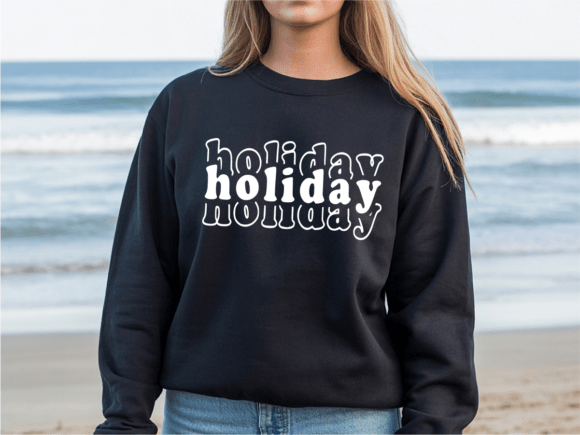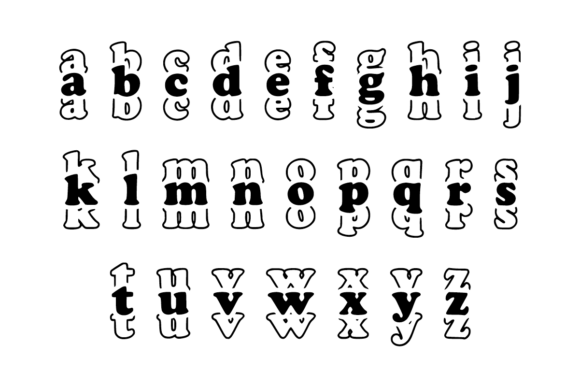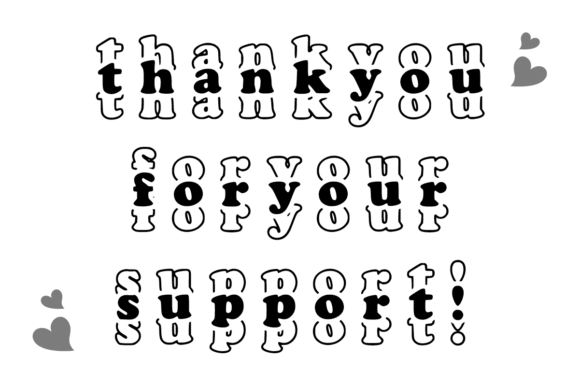
🎂 Introducing Birthday Font: The Ultimate Festive Display Font ✨
Are you looking for a font that screams celebration and fun? Look no further than Birthday Font, a vibrant and playful display font designed to make your designs pop! With its trendy stacked cartoon effect, this font is perfect for creating eye-catching birthday invitations, festive apparel, custom cake toppers, and more.
What Makes Birthday Font So Special?
Birthday Font is more than just a font – it’s an experience. Its unique stacked cartoon effect gives your text a dynamic, 3D-inspired look that’s both bold and playful. The overlapping layers create a sense of depth and excitement, making it perfect for designs that need to shout “Happy Birthday!” with a touch of modern flair.
Main Features of Birthday Font
• 🔠 Uppercase Letters – Bold, bubbly, and beautifully stacked.
• 🔢 Numbers (0-9) – Festive numerals perfect for milestone ages.
• 🔣 Basic Symbols – Essential punctuation for all your celebratory messages.
Perfect Use Cases for Birthday Font
Birthday Font is incredibly versatile and can be used for a wide range of design projects, including:
• 🎈 Birthday Invitations & Party Stationery – Create eye-catching invitations that set the tone for an unforgettable celebration.
• 👕 Kids’ Birthday Shirts & Family Matching Tees – Design fun and playful apparel that’s perfect for birthday parties and family gatherings.
• 🍰 Cake Toppers & Party Decorations – Add a personal touch to your cake toppers and party decorations with custom text.
• ✂️ Cricut & Silhouette Crafting Projects – Use Birthday Font to create custom stickers, gift tags, and other paper crafts.
• 🏷️ Stickers & Personalized Gift Tags – Add a special touch to your gifts with custom stickers and gift tags.
• 📚 School Posters & Charts – Create engaging and fun posters and charts for the classroom.
Why Choose Birthday Font?
With so many fonts to choose from, why choose Birthday Font? Here are just a few reasons:
• Unique and Playful Design – Birthday Font’s stacked cartoon effect is unlike any other font out there.
• Easy to Read – Despite its playful design, Birthday Font is easy to read and understand.
• Versatile – Use Birthday Font for a wide range of design projects, from invitations to apparel.
Tips for Using Birthday Font
Here are a few tips for getting the most out of Birthday Font:
• Experiment with Colors – Birthday Font looks great in bright, bold colors. Experiment with different color combinations to find the perfect look for your design.
• Play with Size – Birthday Font looks great in large sizes, but it can also be used for smaller text. Experiment with different sizes to find the perfect fit for your design.
• Combine with Other Fonts – Birthday Font pairs well with other fonts. Experiment with combining it with other fonts to create a unique look.
Birthday Font is the perfect choice for designers and crafters looking to add a touch of celebration and fun to their designs. With its unique stacked cartoon effect, versatile design, and easy-to-read text, Birthday Font is sure to become a favorite in your font collection. So why wait? Download Birthday Font today and start creating your own festive designs! 🎉